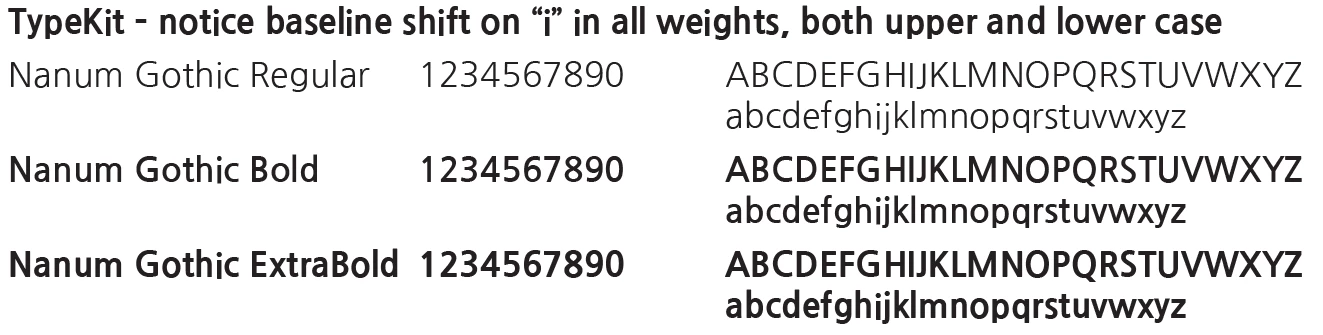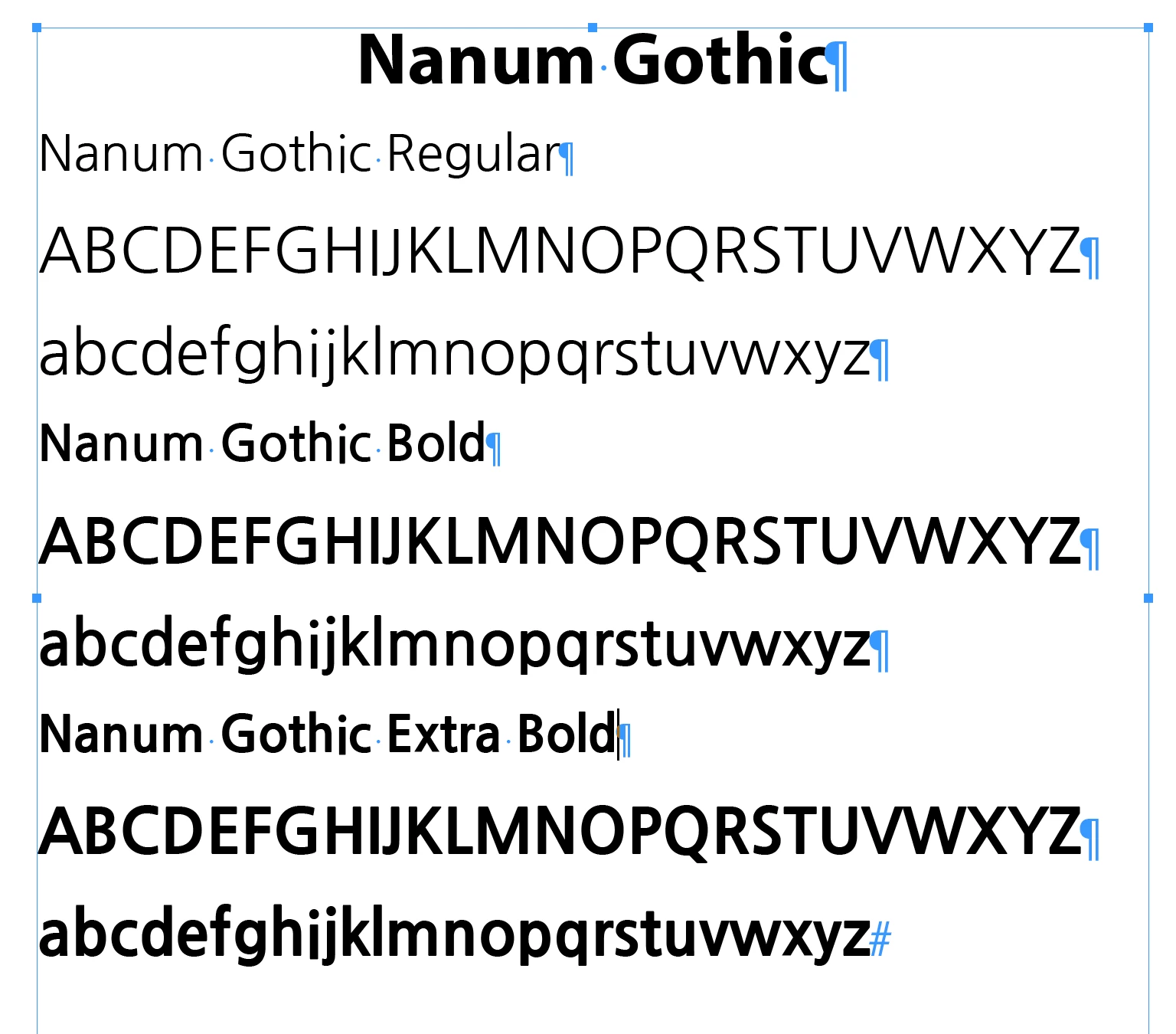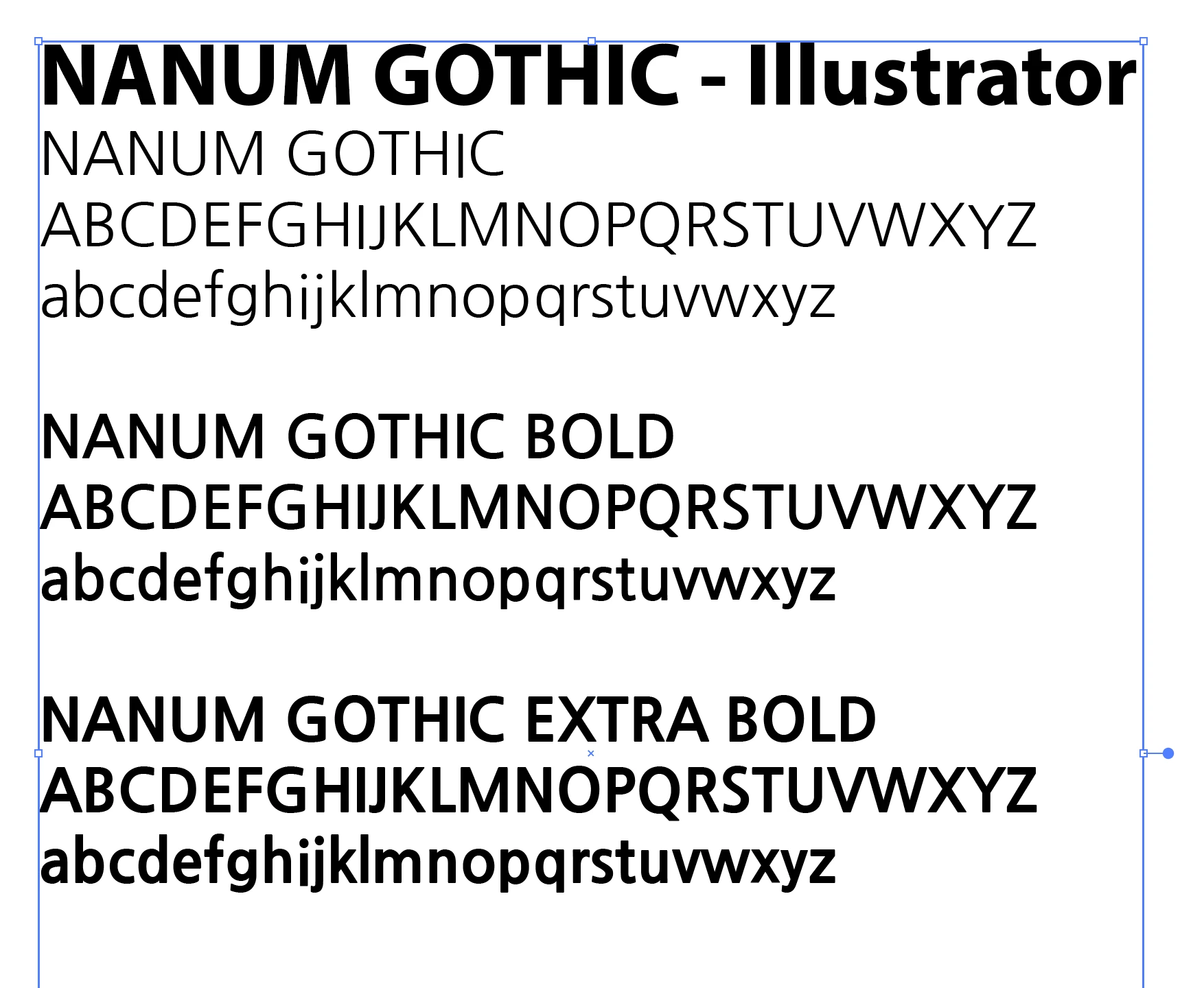
Nanum Gothic TypeKit font baseline shift bug on a single letter
This problem happens with all weights, both upper and lower case, only on "i" character.
The font family in question is Nanum Gothic.
If I load a physical copy of the TrueType 3.020 font using Universal Type Client, there is no baseline shift:
If I use the TypeKit version, the "i" character shifts down, in all three weights, both upper and lower case.
"I is the only affected letter.
The font works normally in Illustrator.
I just loaded Nanum Gothic from Adobe Fonts (formerly called Typekit) and I'm getting the same result (shown below):
I also see another discrepancy, also shown in your example. In the Regular weight capital letters IJ are also baseline shifted.
Good eye! Lower case "j" in regular weight is moved down as well, if you compare the dots.
I wonder if someone was trying to get the descender on the capital j to be more below baseline and saved (some of) the changes to the other weights.